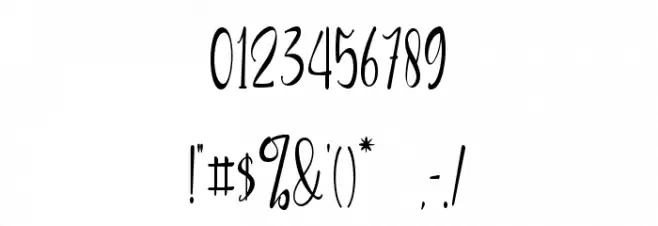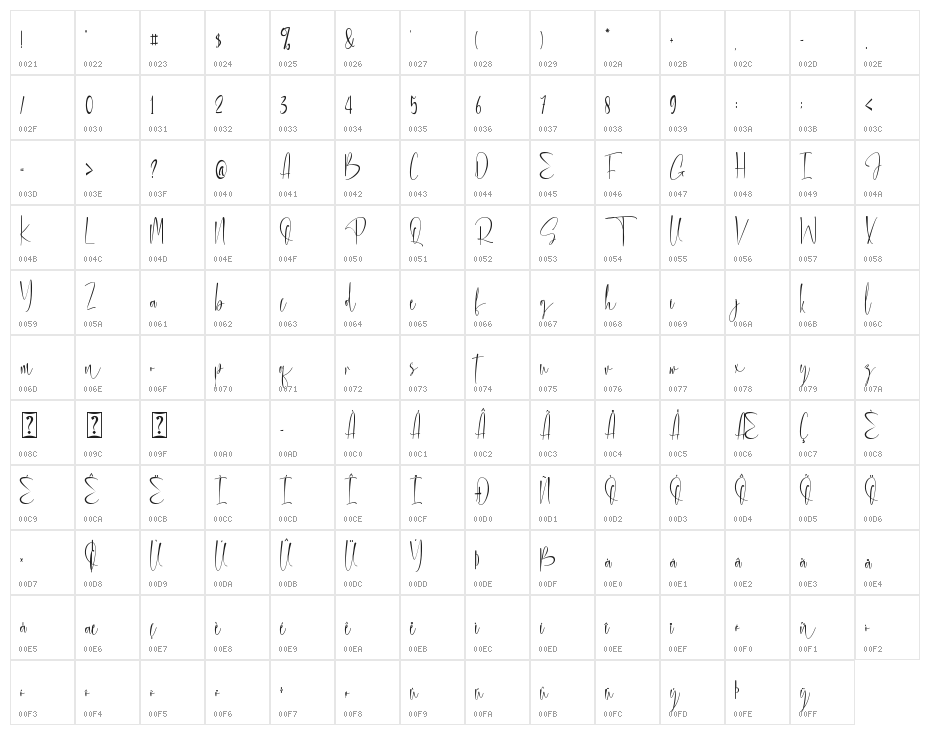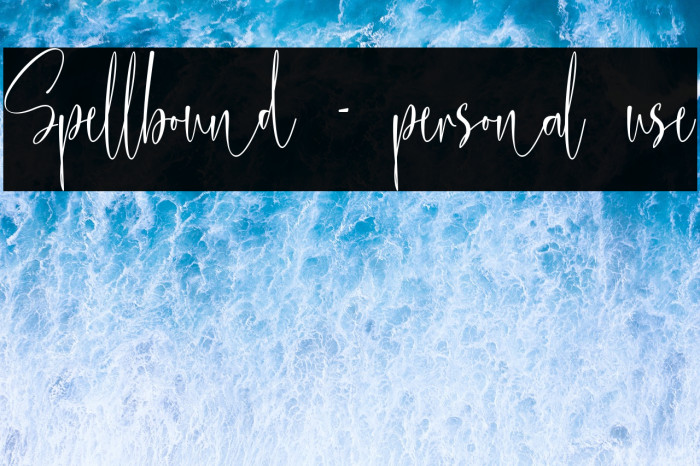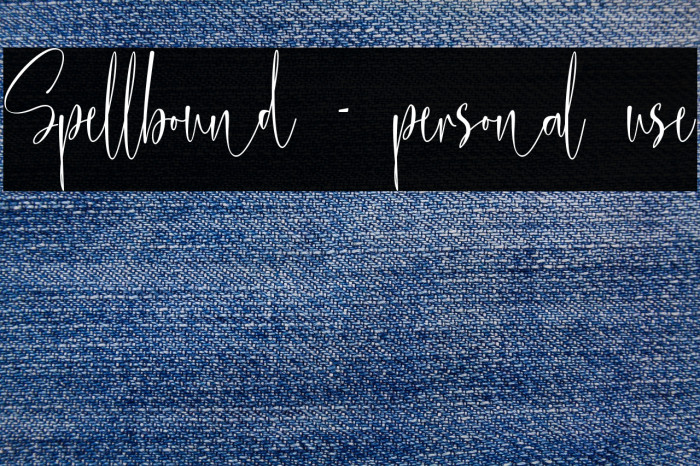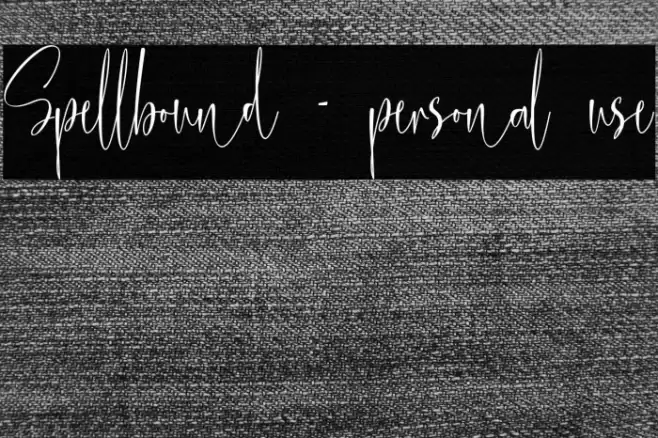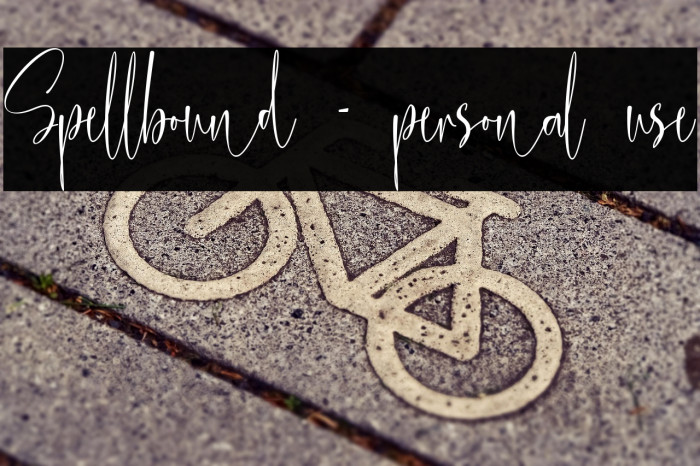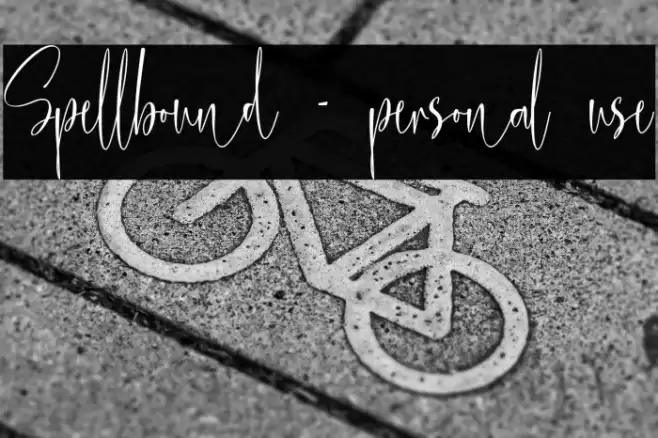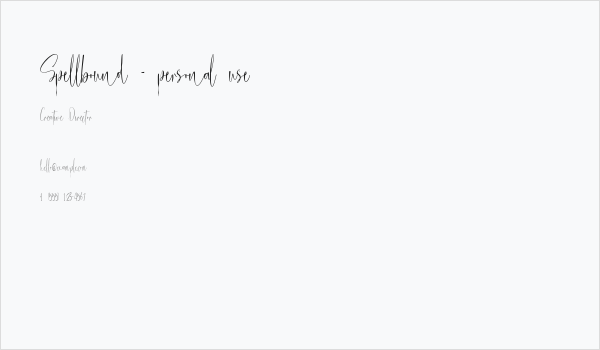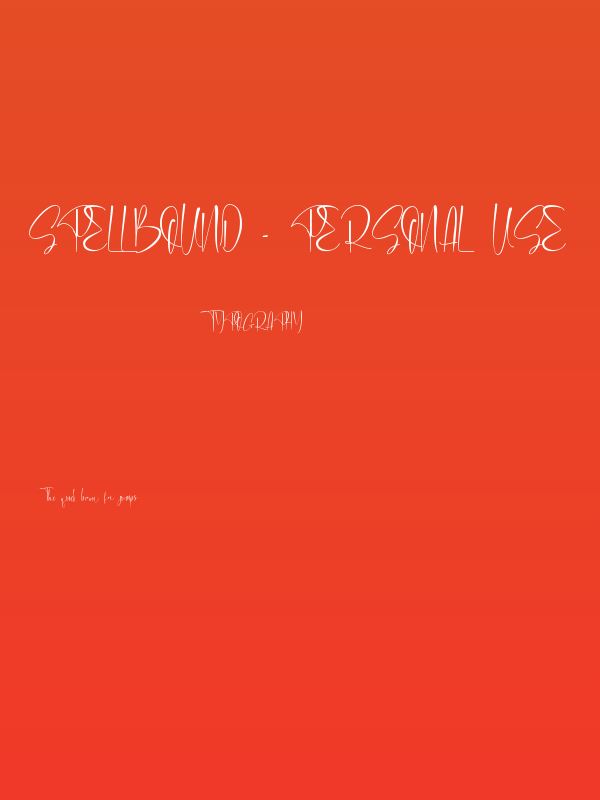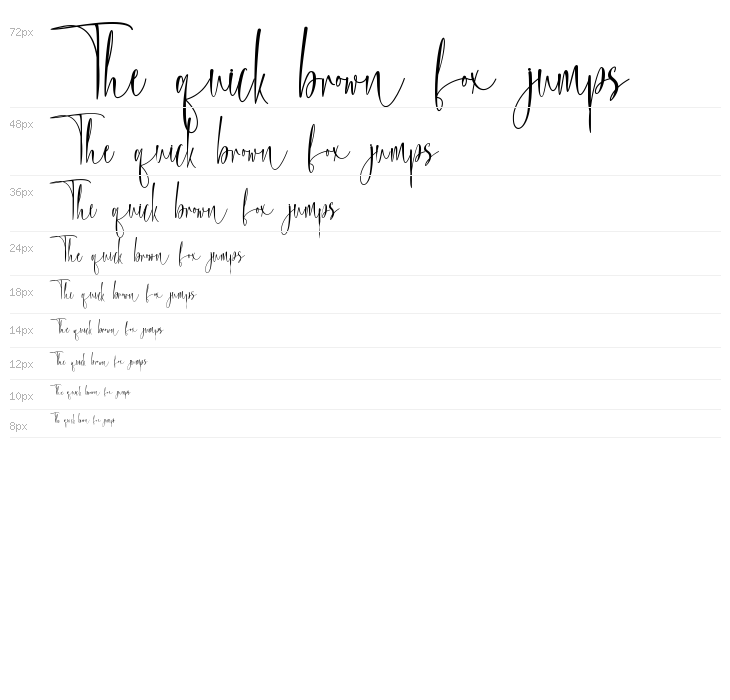
Spellbound - personal use Font
Spellbound - personal use Description
This font features a whimsical and flowing script style, characterized by its elegant and elongated letterforms. The uppercase letters exhibit a playful yet sophisticated flair, with varying stroke widths that add a dynamic quality to the text. The lowercase letters maintain a consistent cursive style, enhancing the font's overall fluidity. Numbers are clear and maintain the same artistic style, ensuring readability while preserving the font's unique character. Special characters are thoughtfully designed to complement the overall aesthetic, making this font suitable for creative and artistic projects.
| Proposed Projects | Ideal for wedding invitations, greeting cards, branding projects, and artistic posters. |